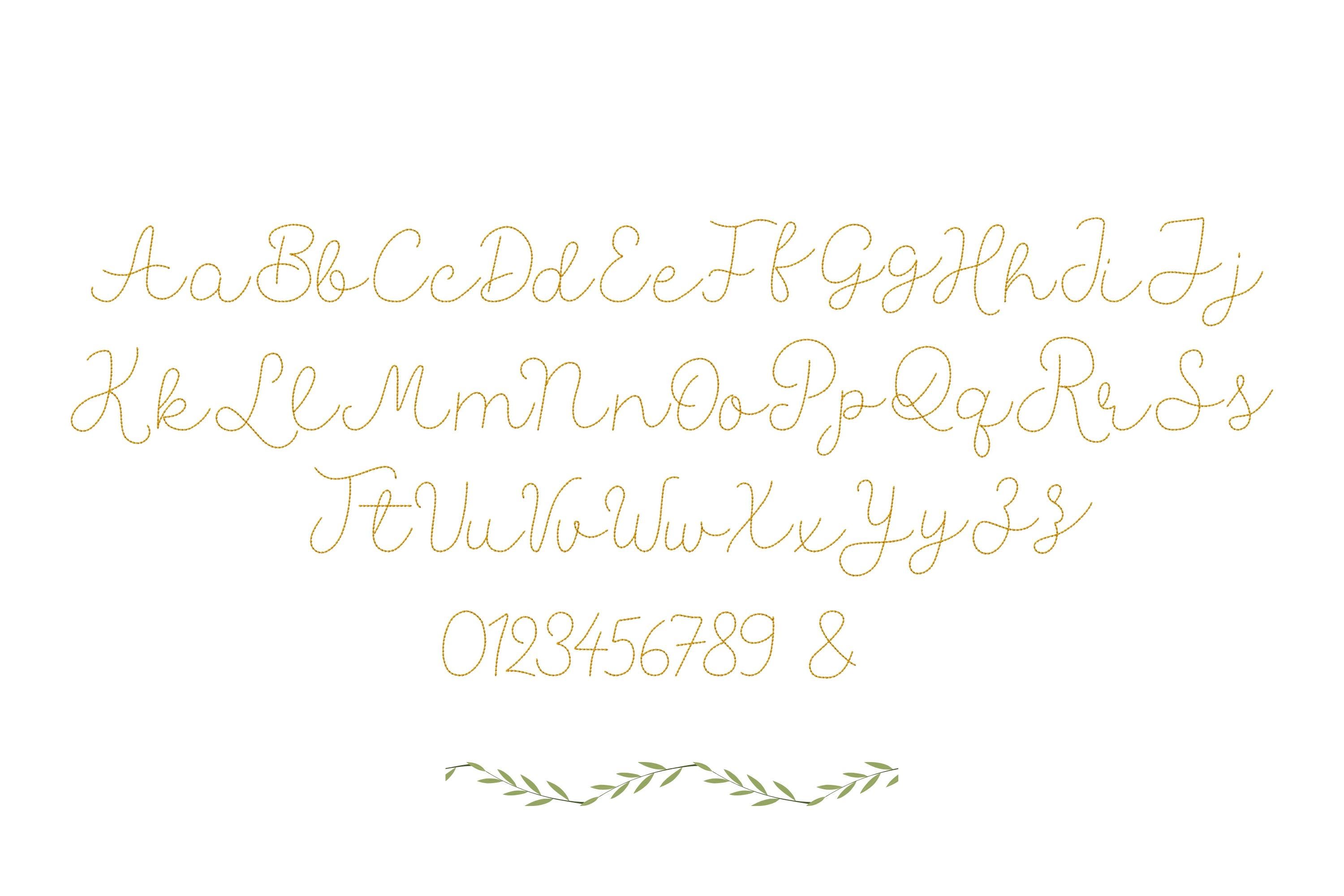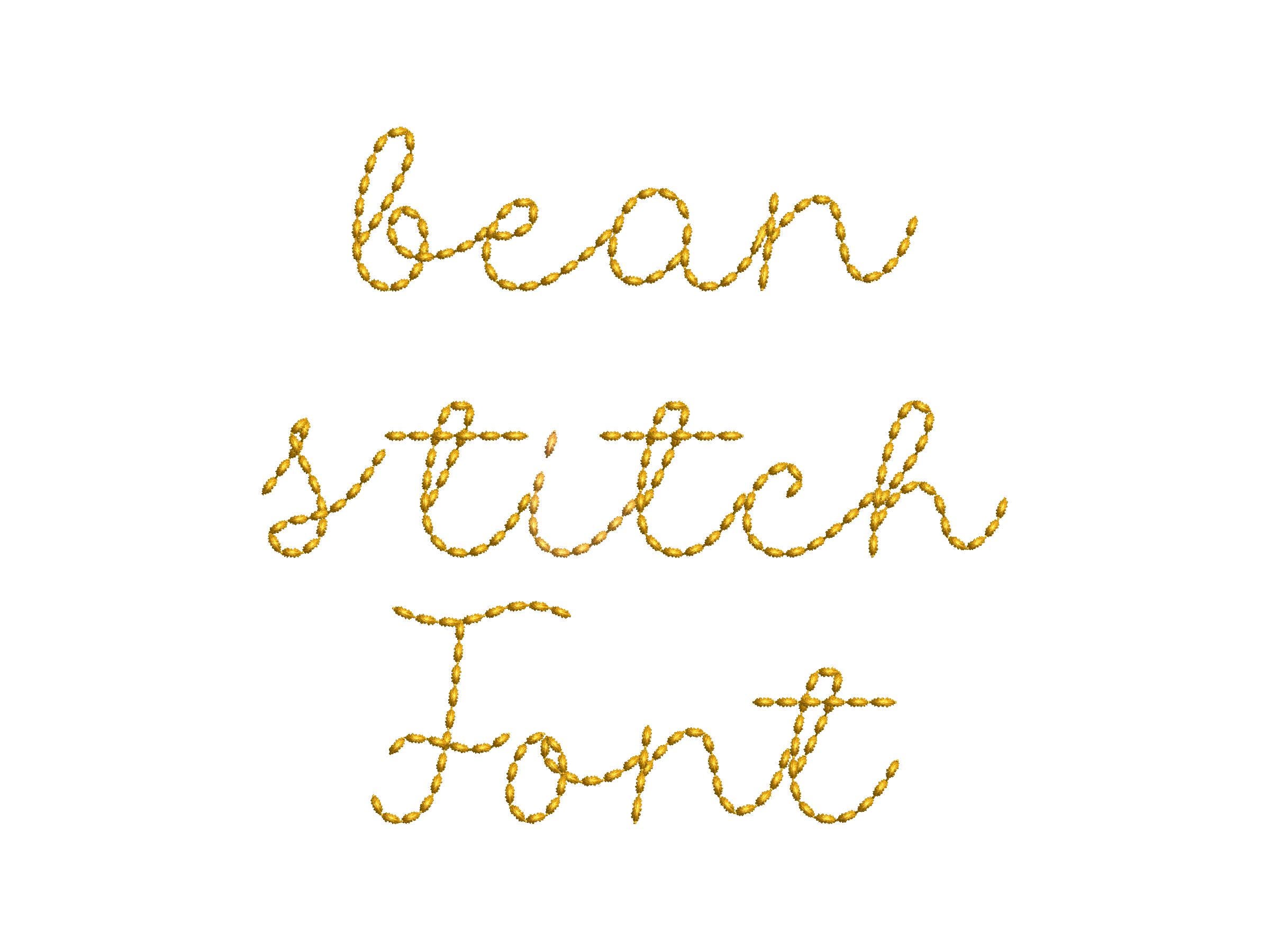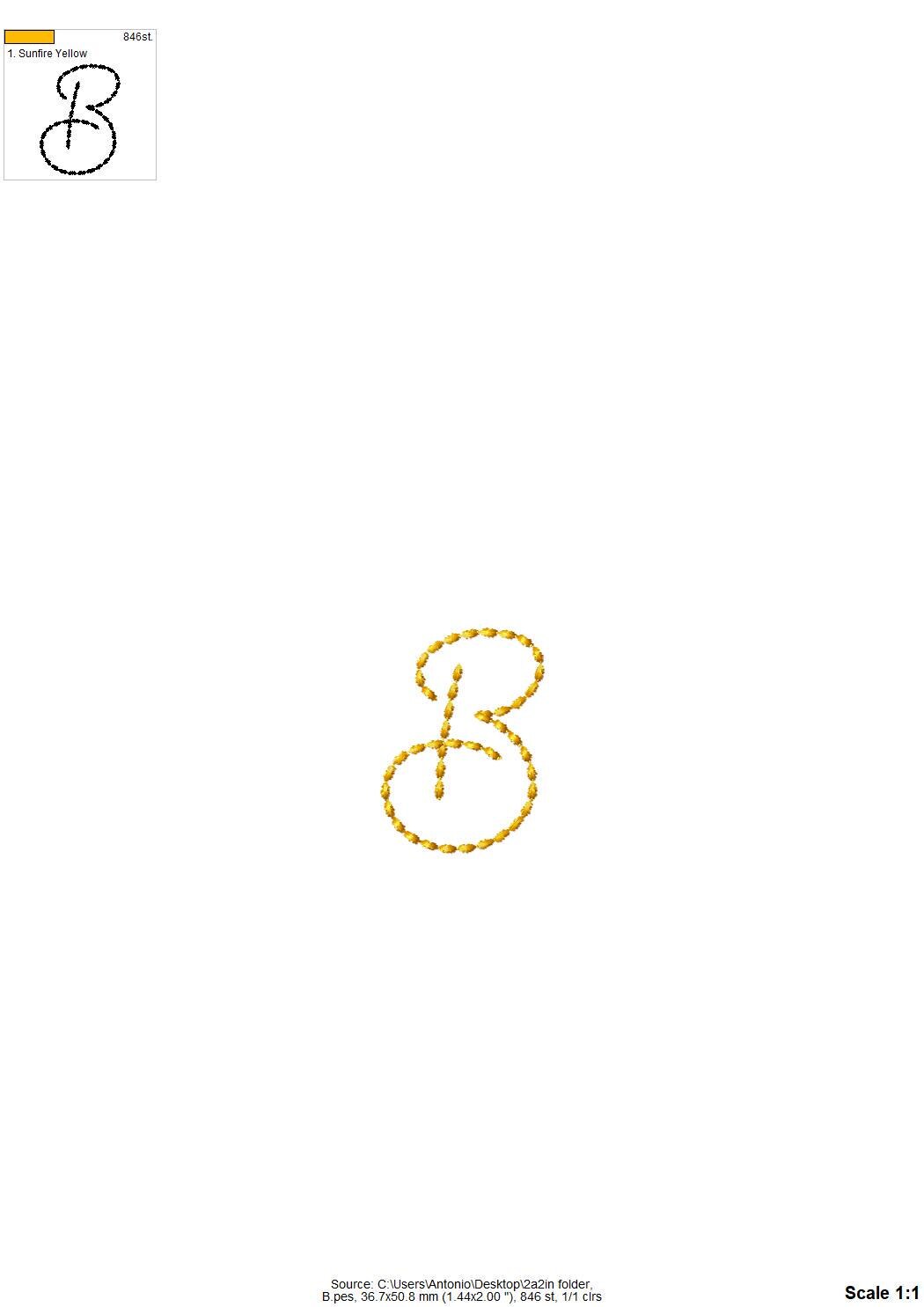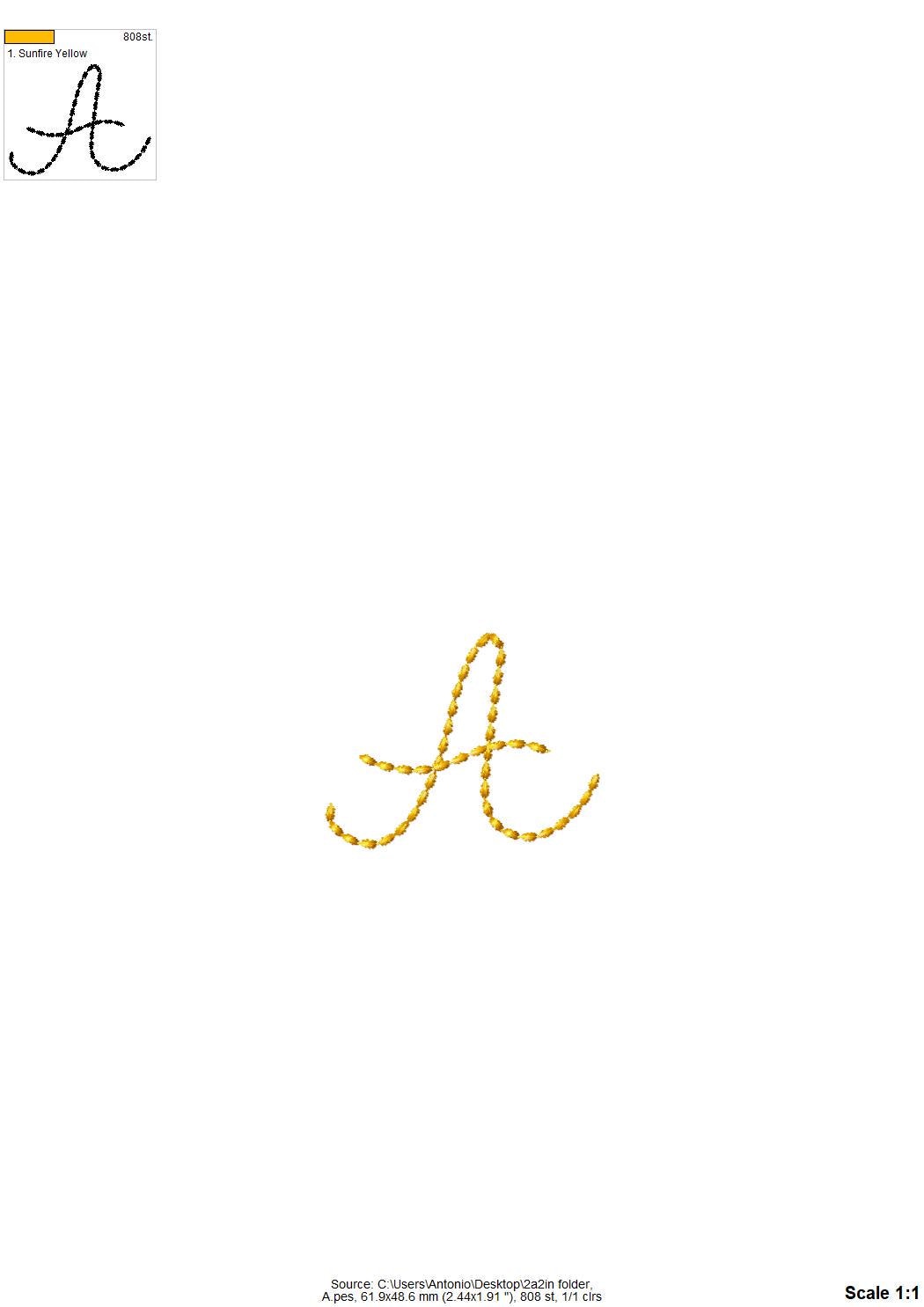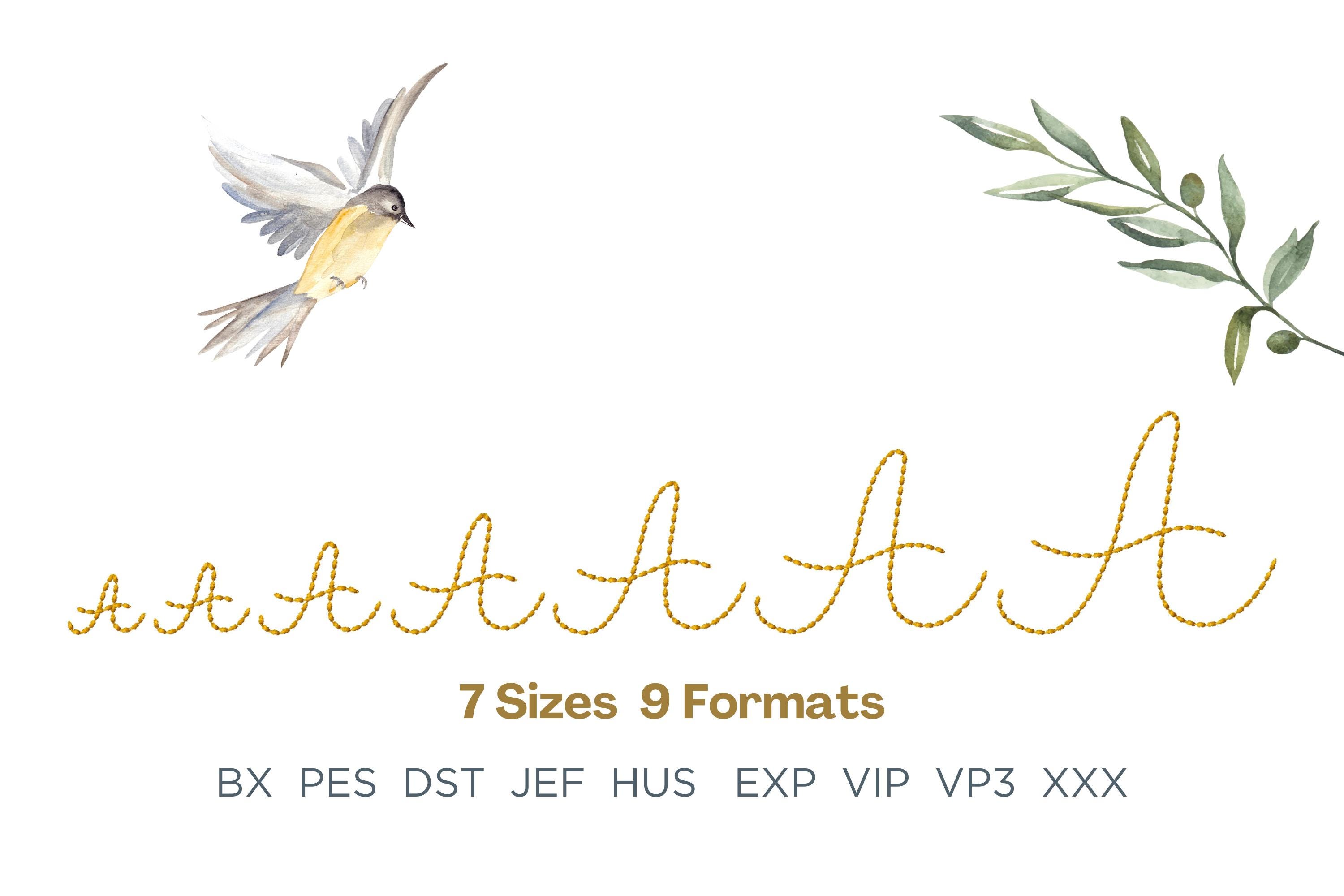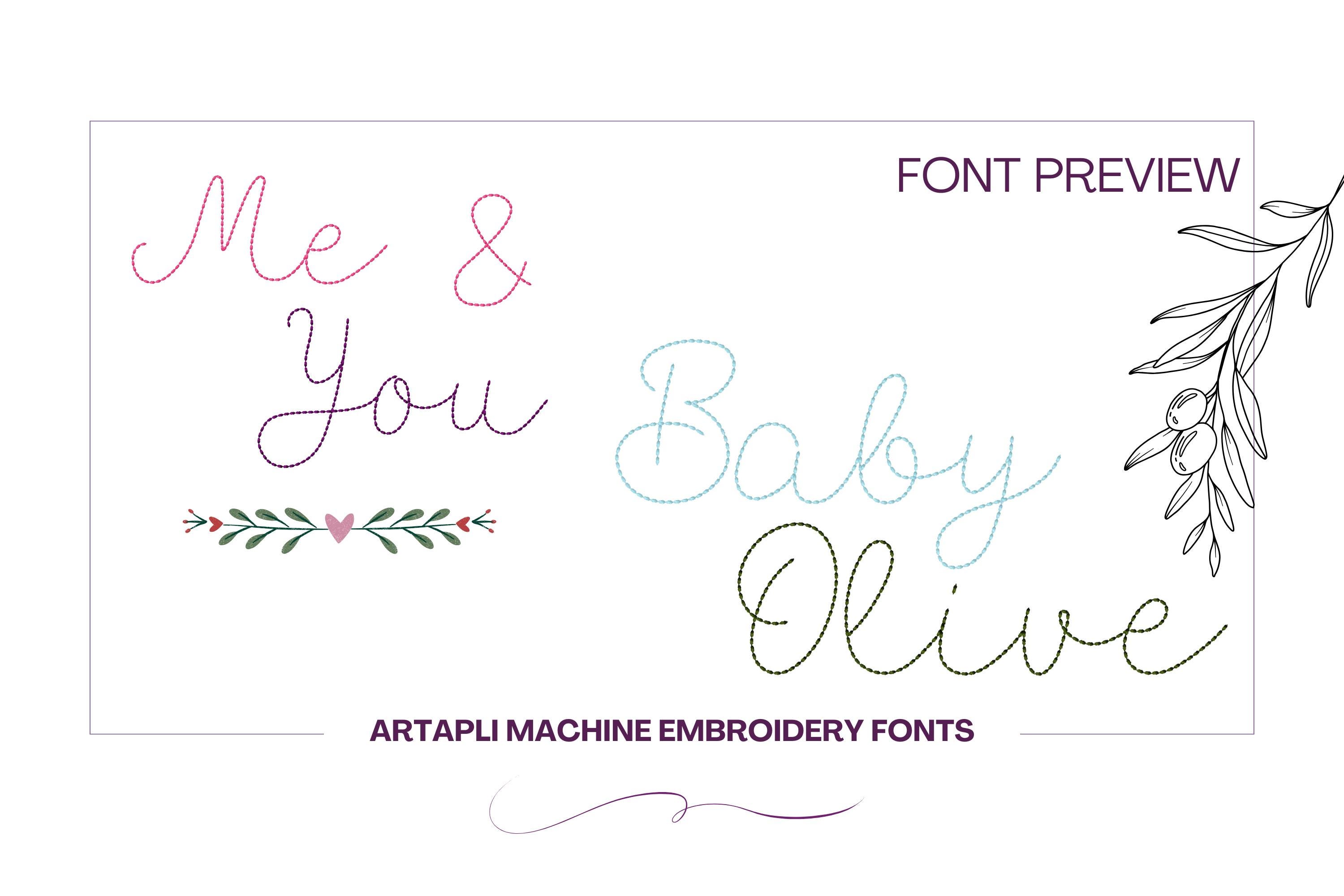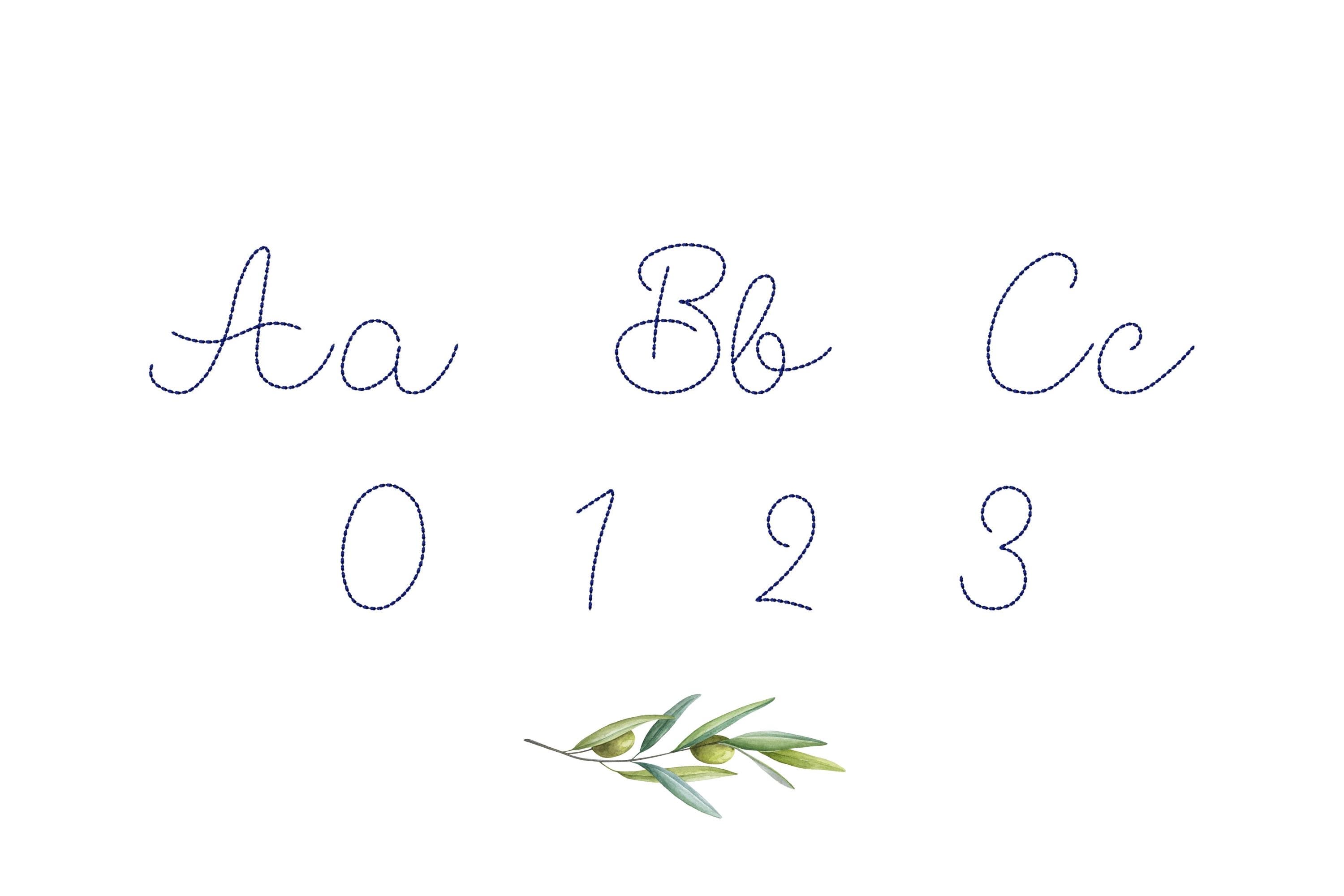
Bean stitch FONT handwritten script alphabet letters monogram quick light stitch machine embroidery designs assorted sizes 1 up to 4in, BX
Whole alphabet: uppercase and lowercase letters, numbers and ampersand &